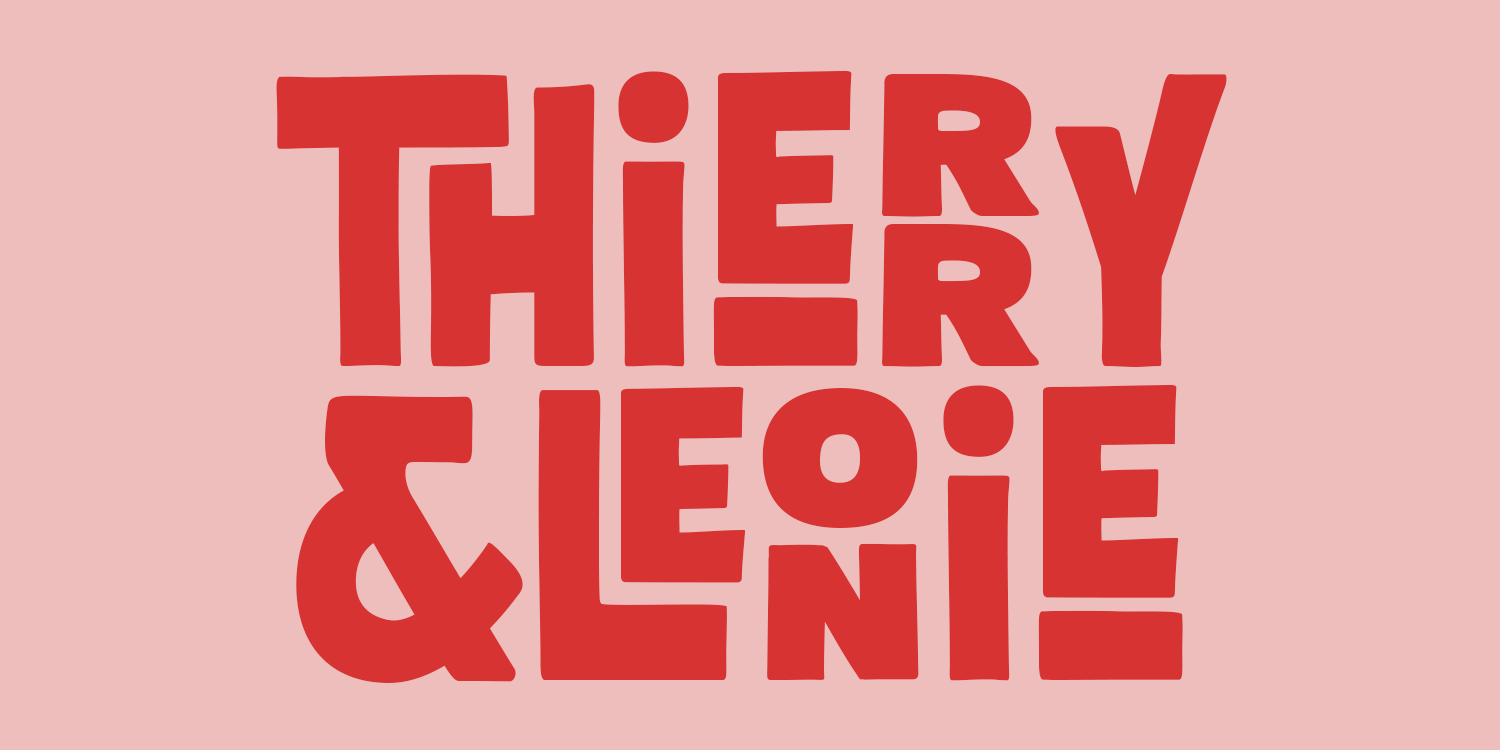
The Thierry Leonie Font is ideal for French-inspired branding, Parisian cafe signage, vintage European posters, artisanal bakery logos, boutique fashion labels, romantic wedding invitations, elegant restaurant menus, classical European publications, and sophisticated design projects that require distinctive French typographic character and continental charm.
What makes the Thierry Leonie Font so exciting is its exquisite embodiment of French typographic elegance and European sophistication that captures the essence of Parisian design culture with remarkable authenticity and refined charm. This extraordinary typeface reflects the perfect marriage of traditional French lettering craftsmanship with contemporary design sensibilities, featuring graceful curves, distinctive character details, and sophisticated proportions that evoke the timeless appeal of European café culture and French artistic heritage. The font's unique personality and cultural authenticity make it the perfect choice for brands and projects seeking to communicate European sophistication, French elegance, and the refined lifestyle associated with continental design traditions.
The Thierry Leonie Font family typically includes regular, italic, and bold weights, along with decorative alternates and stylistic elements that provide designers with authentic French typographic tools for creating sophisticated European-inspired branding systems and elegant continental design applications.
Luxury hospitality brands and European-style businesses consistently choose Thierry Leonie Font Free Download for its unmatched ability to convey authentic French charm and continental sophistication. This distinguished typeface represents the pinnacle of European design heritage, offering professionals a refined tool for creating memorable brand experiences that resonate with audiences who appreciate French culture, European craftsmanship, and continental lifestyle values. Whether you're developing branding for French restaurants, creating promotional materials for European travel destinations, designing luxury fashion communications, or crafting sophisticated hospitality marketing, this font delivers the cultural authenticity and elegant appeal that European-inspired communications require.
The beautifully crafted letterforms of the Thierry Leonie Font showcase traditional French lettering characteristics with contemporary refinements that ensure excellent readability while preserving distinctive European character. The font's elegant proportions and sophisticated details create immediate associations with French café culture, Parisian elegance, and European artistic traditions.
Hospitality designers and luxury brand managers appreciate the font's versatility in creating typography that feels both authentically European and contemporarily relevant, effectively bridging traditional French design aesthetics with modern brand communication needs across diverse cultural contexts and international markets.
For businesses seeking to establish authentic connections with European design culture and communicate French sophistication through their visual identity, the Thierry Leonie Font provides an exceptional typography solution. Its cultural foundation and elegant execution make it particularly suitable for French restaurants, European luxury brands, boutique hotels, and lifestyle companies that value continental charm and sophisticated European aesthetics.
The font's optimization for both traditional print applications and modern digital platforms ensures consistent European elegance across all brand touchpoints, while its timeless French aesthetic provides enduring value for luxury brand systems requiring typography that authentically represents the enduring appeal of French design culture and European sophistication in today's global marketplace.